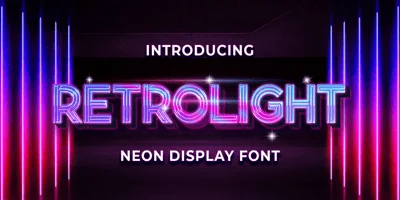
Retrolight Font
The Retrolight Font is excellent for vintage-inspired design projects including retro neon signage, classic diner branding, vintage nightclub posters, nostalgic advertising campaigns, 80s-themed event materials, retro gaming interfaces, vintage fashion labels, and classic entertainment venue marketing. This luminous typeface brings glowing nostalgia and vintage neon charm to any design project celebrating retro aesthetics and classic lighting design with authentic period appeal.
What makes Retrolight Font so exciting is its perfect embodiment of vintage neon lighting with glowing letterforms that capture the essence of classic neon signs and retro illuminated displays. The letters feature bright, illuminated characteristics with vintage neon styling that creates an immediate sense of nostalgic charm and retro sophistication. This distinctive glowing character makes it perfect for brands and projects that want to communicate vintage appeal, retro entertainment, and the captivating glow of classic neon design and nostalgic lighting aesthetics.
The Retrolight Font family typically includes regular and bold weights, often with glowing variations and neon-inspired decorative elements. Many versions feature vintage symbols, retro design glyphs, and classic lighting effects that enhance its authenticity for entertainment and nostalgic applications.
Whether you're designing for retro venues, vintage brands, or nostalgic entertainment projects, Retrolight Font provides the perfect solution for projects that need to convey vintage neon charm and retro illumination. This font transforms standard text into glowing designs that immediately communicate nostalgic appeal, vintage entertainment value, and the mesmerizing glow of classic neon aesthetics to audiences seeking authentic retro experiences and vintage lighting atmosphere.